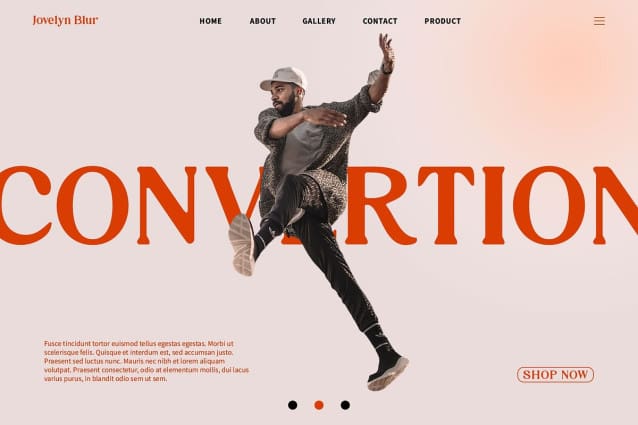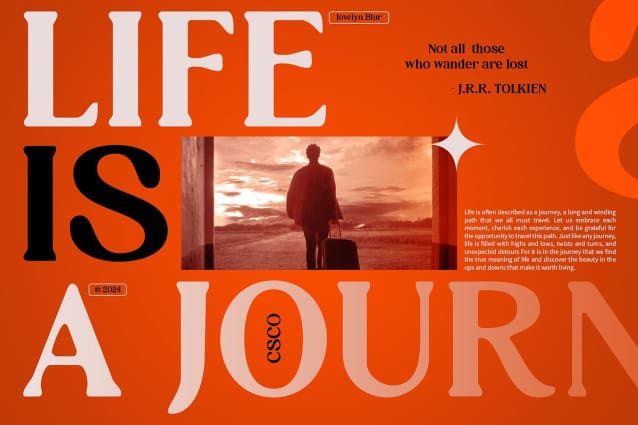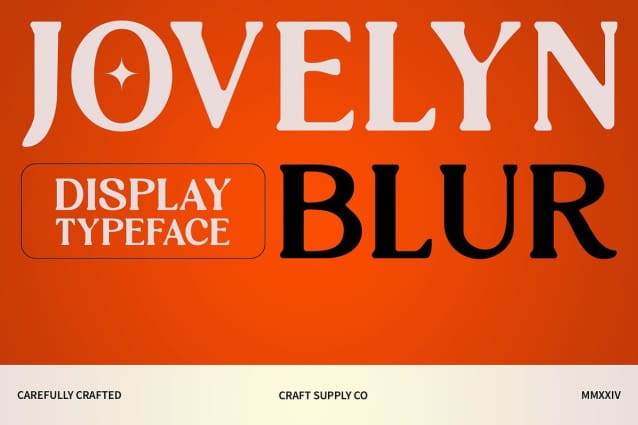
Jovelyn Blur Font
Jovelyn Blur Font is a serif font with a blur style that evokes memories of the past, perfect for designs with a nostalgic feel. Its classic design and blurred elements create a warm and familiar look, ideal for posters, branding, and other projects that aim to evoke a sense of nostalgia.
With its timeless charm and blurred details, Jovelyn Blur offers a fresh take on serif fonts. The retro style and blur effect create a captivating and sentimental look, perfect for designs that seek to connect with the past and evoke a sense of nostalgia.
Whether you’re designing a vintage-inspired advertisement or creating a retro-themed website, Jovelyn Blur is sure to make an impression. Its blur style and retro design make it perfect for designs that aim to transport viewers to a bygone era.
Despite its distinctive appearance, Jovelyn Blur is versatile and easy to use. The font works well in both large and small sizes, making it suitable for a variety of applications, from headlines and banners to body text and more. With its blend of retro style and blur effect, Jovelyn Blur adds a nostalgic and sentimental touch to any design.